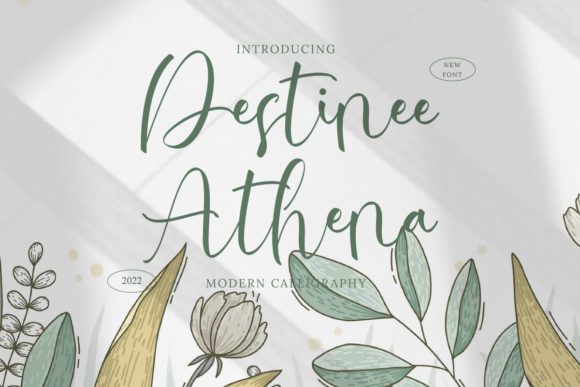
Unleash the captivating allure of Destinee Athena, a script font that dances across digital landscapes with grace and elegance. Immerse yourself in the world of Circle Studio's creation, where every letterform is a stroke of genius, a masterpiece that weaves stories and ignites imaginations.
Destinee Athena is not just a font; it's an experience, an expression of your individuality. Its flowing lines and delicate curves evoke a sense of sophistication and charm, transforming ordinary words into works of art. Whether you're crafting a heartfelt wedding invitation, expressing gratitude with a thank-you card, or capturing the essence of your brand with a captivating logo, Destinee Athena will elevate your designs to new heights of beauty and elegance.
Step into a world where creativity knows no bounds, where your designs come alive with the enchanting allure of Destinee Athena. Let your words dance across the page, carried by the ethereal beauty of this font, leaving an unforgettable impression on all who behold it.
With Destinee Athena, you'll embark on a creative journey like never before. Its versatility knows no limits, allowing you to explore endless possibilities. From the delicate charm of personal correspondence to the bold confidence of business branding, Destinee Athena seamlessly adapts, enhancing every project with its timeless grace.
Discover the endless possibilities of Destinee Athena, the script font that captivates hearts and ignites imaginations. Let your creativity soar, let your words shine, and let Destinee Athena be your guiding light in the world of design.